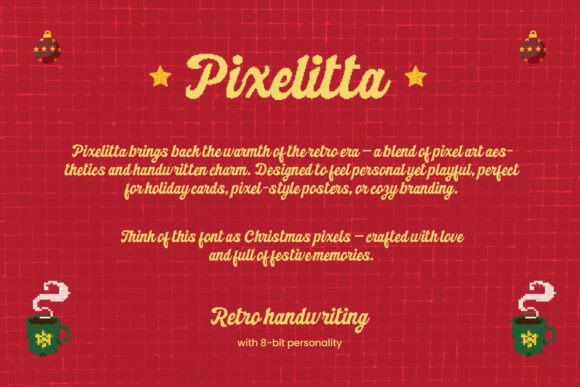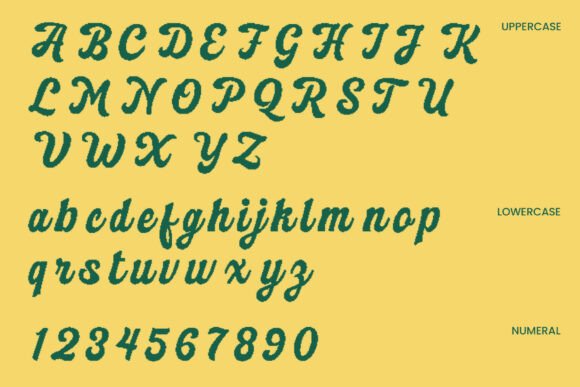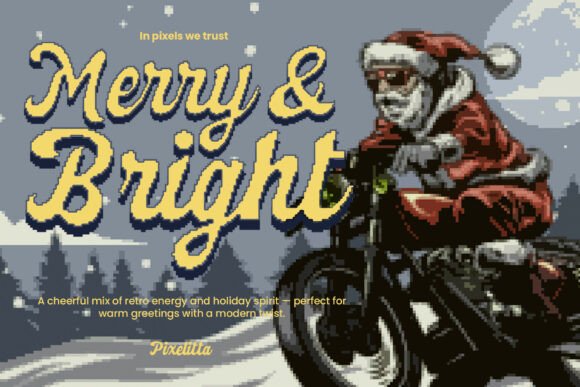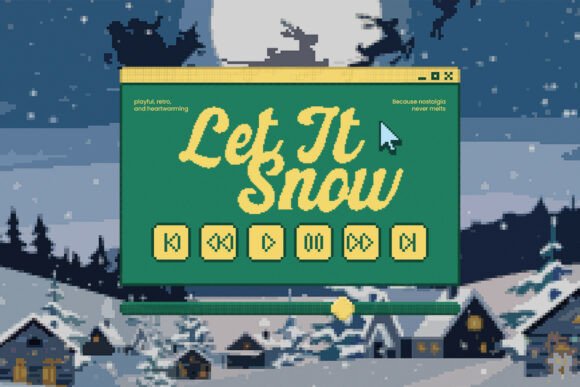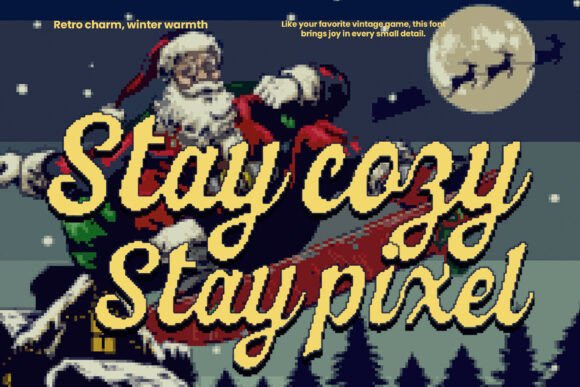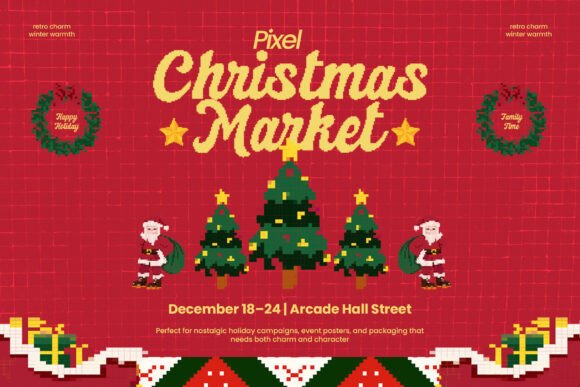
Introduction to Pixelitta Font
Have you ever sat down with a warm cup of hot cocoa, surrounded by twinkling Christmas lights, and felt the urge to create something magical? For many of us, the holiday season is a time for nostalgia, warmth, and creativity. As designers, we’re always on the lookout for design resources that capture the essence of these special moments. That’s where the Pixelitta Font comes in – a retro pixel script font that embodies the spirit of classic holiday memories through an 8-bit lens.
With its unique blend of handwritten charm and pixel-art precision, Pixelitta Font delivers a playful yet cozy personality that’s perfect for designers looking to add some festive flair to their creative projects. Whether you’re working on a Christmas campaign, holiday poster, or seasonal branding, this font is sure to bring a touch of joy and nostalgia to your design. And the best part? It’s available for a free download, making it an invaluable resource for designers of all levels.
- Unique Characteristics: Pixelitta Font features a unique blend of digital and hand-drawn elements, making it an excellent choice for designers seeking a distinctive look.
- ⚠️ Limited character set: The Pixelitta Font has a relatively small character set, which can be a limitation for more complex projects.
- ⚠️ Not suitable for body text: While the font is perfect for headlines and titles, it’s not ideal for body text due to its pixelated design.